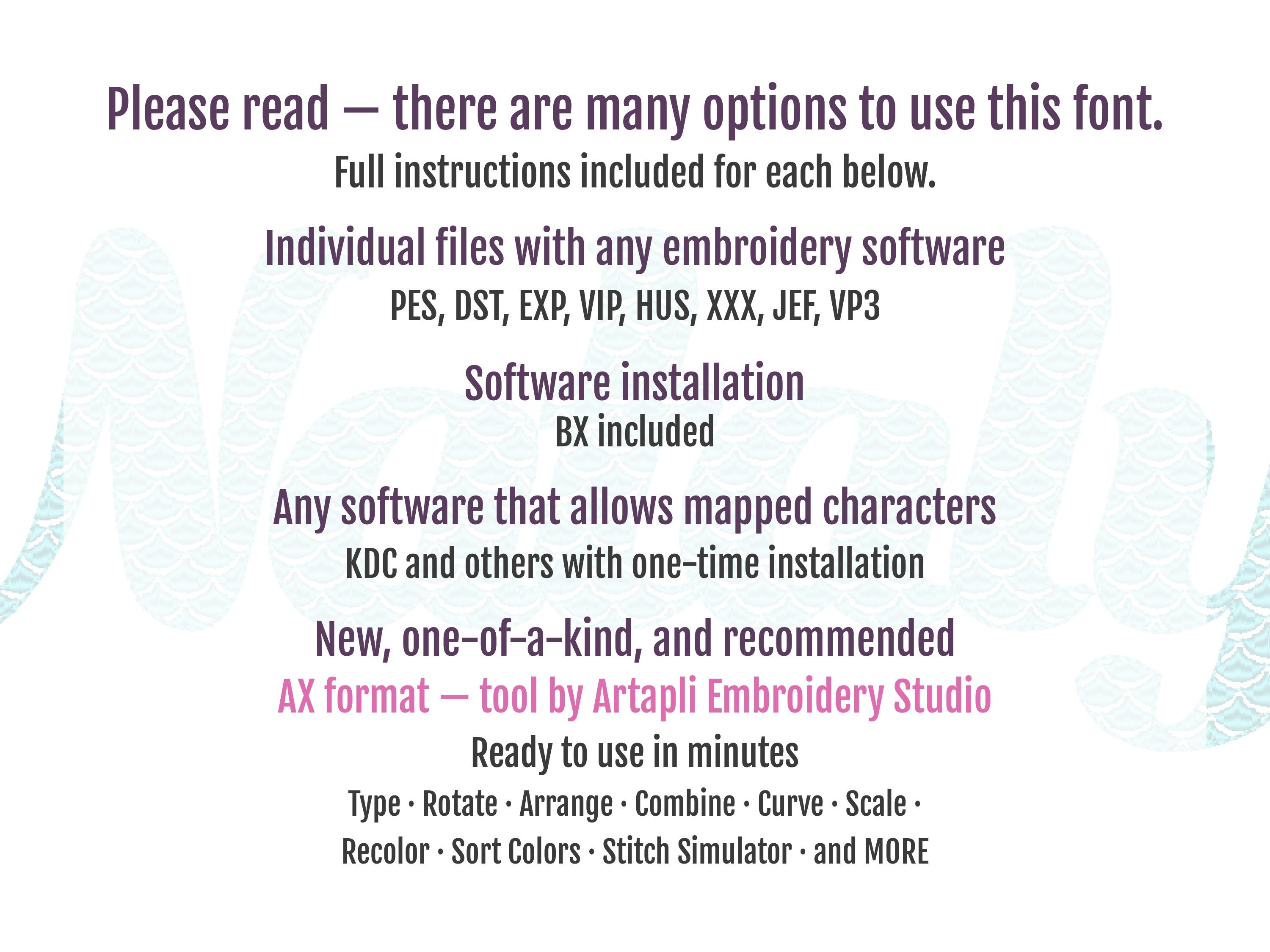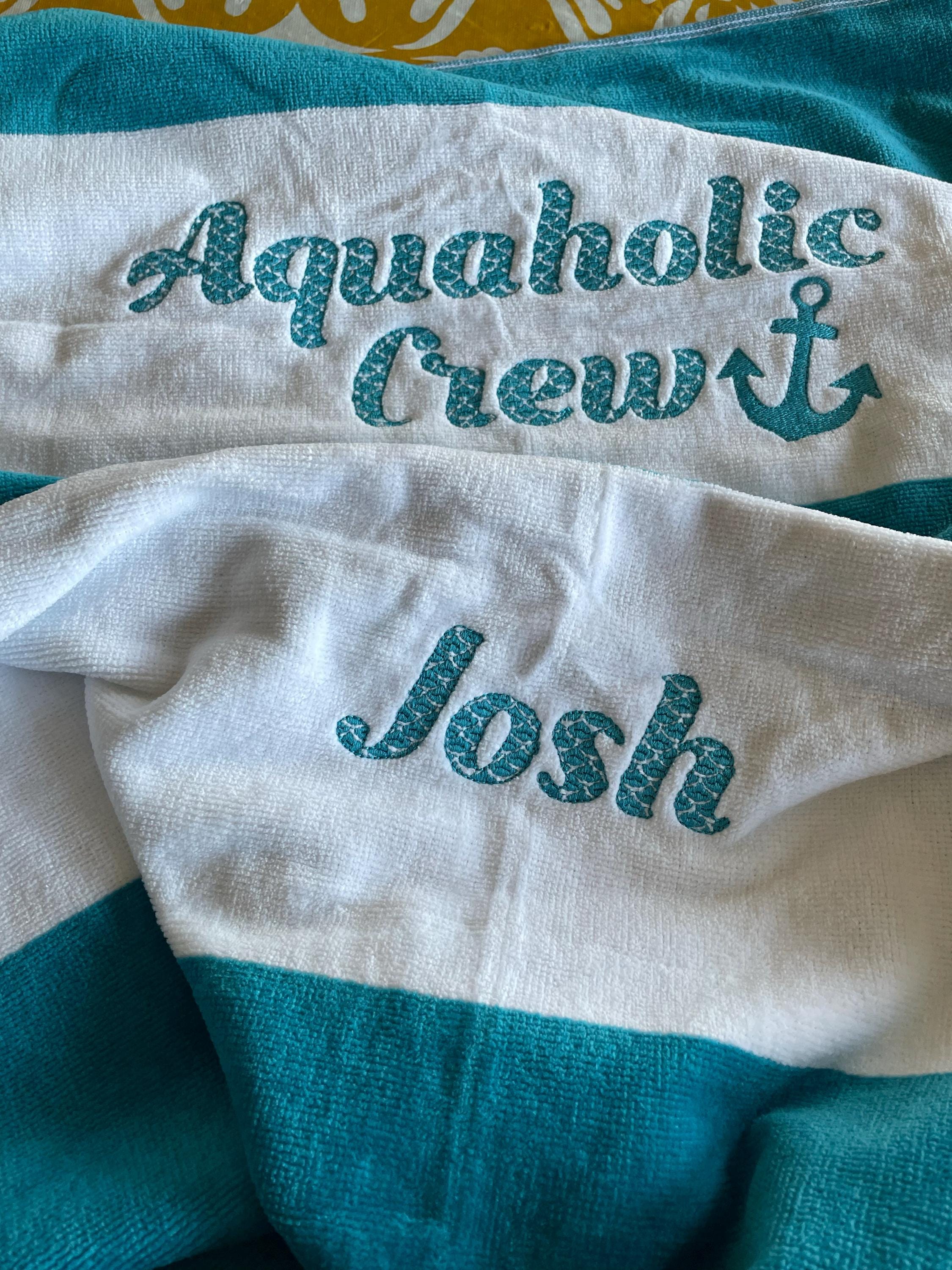
The font is transparent and has satin stitch scallops, with a bean stitch outline.
This font stitched out great! Loved the option of one or two color thread. Very happy with the results.
Came out so beautiful.
This is a beautiful and unusual font. It stitches beautifully as do all of her designs. This is the first place I look when I want something out of the ordinary.